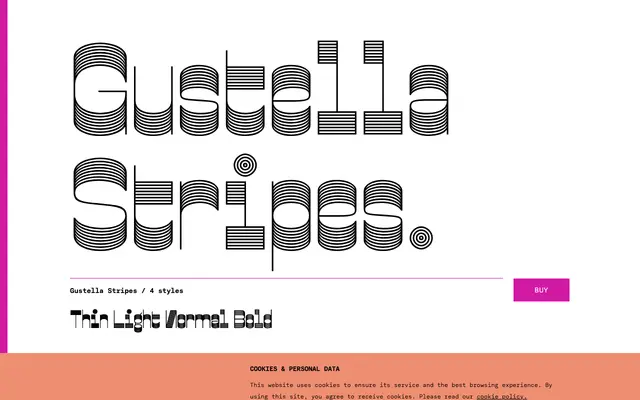
Gustella Stripes
A striped reverse-contrast display face by Thomas Thiemich, part of the four-variant Gustella superfamily, designed for overprinting and extreme decorative use.
One of four variants in the Gustella superfamily, Stripes applies horizontal striping to an already extreme reverse-contrast structure, pushing the high-contrast tradition of nineteenth-century Western letterforms and Hippy-era graphics into a precise digital form. All four Gustella variants — Solid, Stripes, Inline and Boxed — share identical metrics, allowing them to be layered or overprinted for composite effects. The character set is thorough, covering Western, Central and East European Latin languages alongside stylistic alternates, multiple figure sets, fractions and case-sensitive punctuation.
Gustella Stripes is a reverse-contrast display typeface with extreme stroke contrast and a decorative striped treatment within the letterforms, placing it firmly in the display category with roots in nineteenth-century slab and hippy-era lettering extremes.